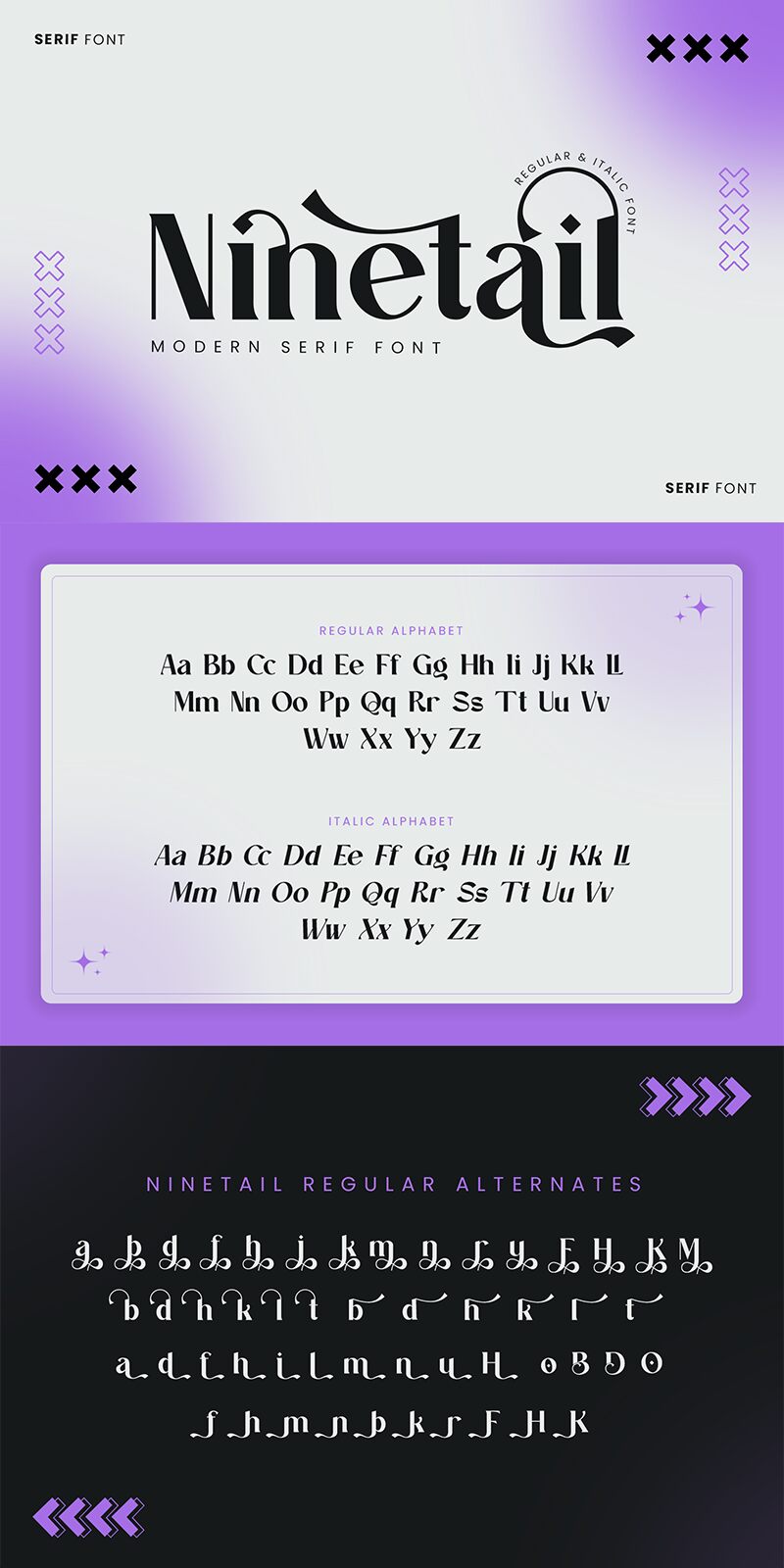
Ninetail regular
Ninetail font is a free elegant serif font made by Ahmad Riqi. This sophisticated typeface carries a high contrast between its thick and thin lines, decorative flair and its style is modern and feminine. In addition to the decorative nature of this classy font - elegance on itself stands out when looking at it.